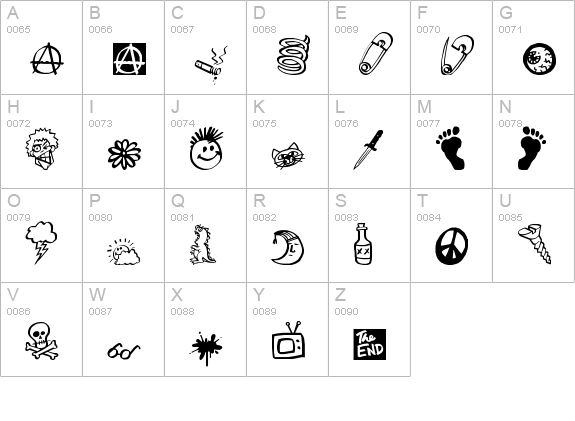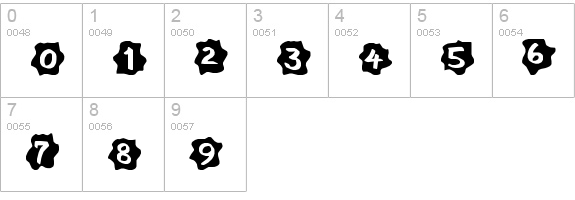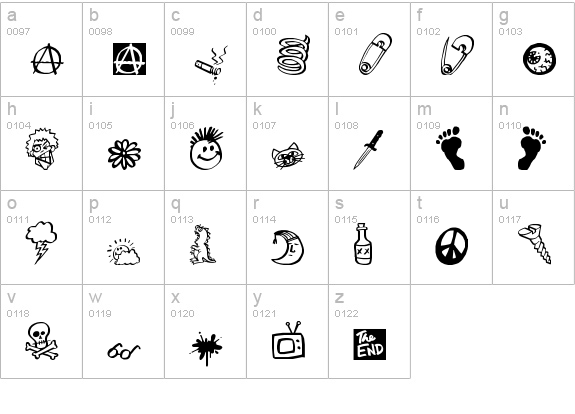
MW Ding-A-Lings Font Details
MW Ding-A-Lings font is a whimsical and playful typeface that is perfect for adding a touch of fun and creativity to any design project. With its unique dingbat characters and quirky shapes, this font is sure to capture attention and bring a sense of charm to your work. What sets MW Ding-A-Lings font apart is that it is not only visually appealing but also incredibly versatile. Whether you are designing invitations, posters, greeting cards, or any other creative project, this font will add a delightful touch that sets your work apart. And the best part? MW Ding-A-Lings font is available for free download at FontsMarket.com. You can easily access this font and start incorporating its playful charm into your designs today. Don't miss out on the opportunity to add a touch of whimsy to your projects with MW Ding-A-Lings font.